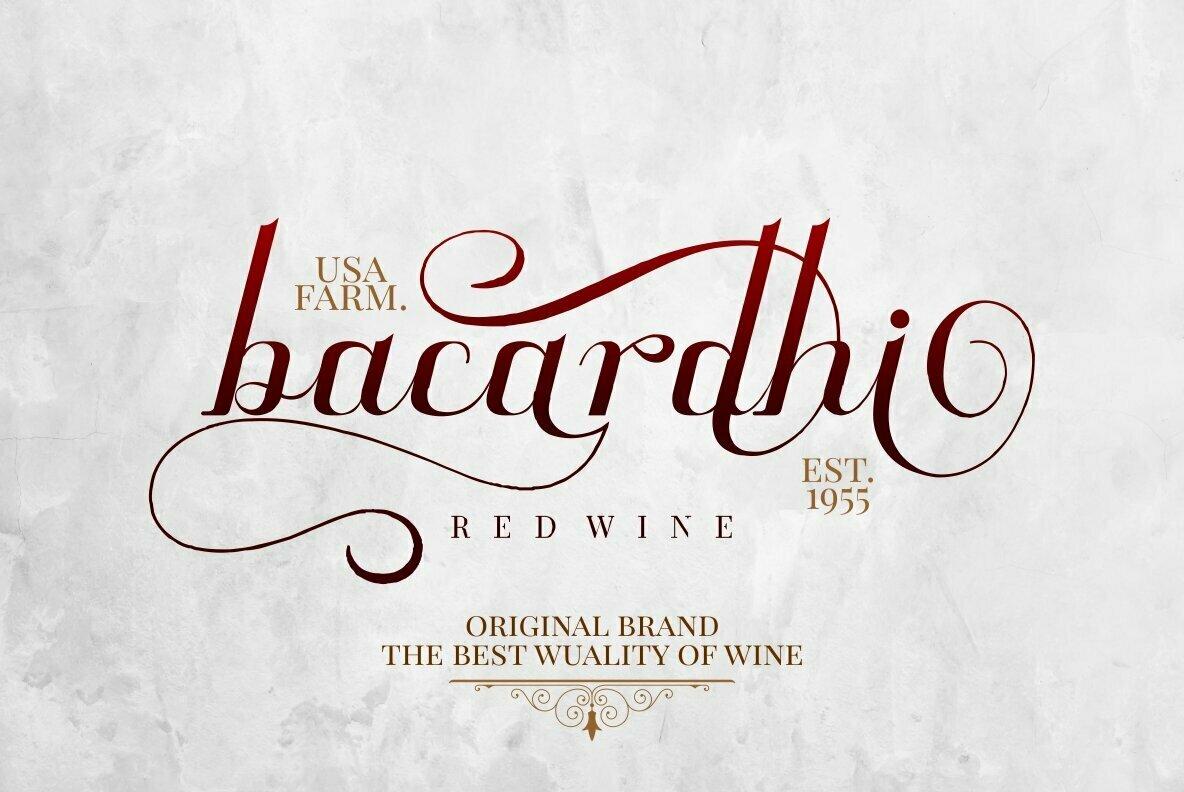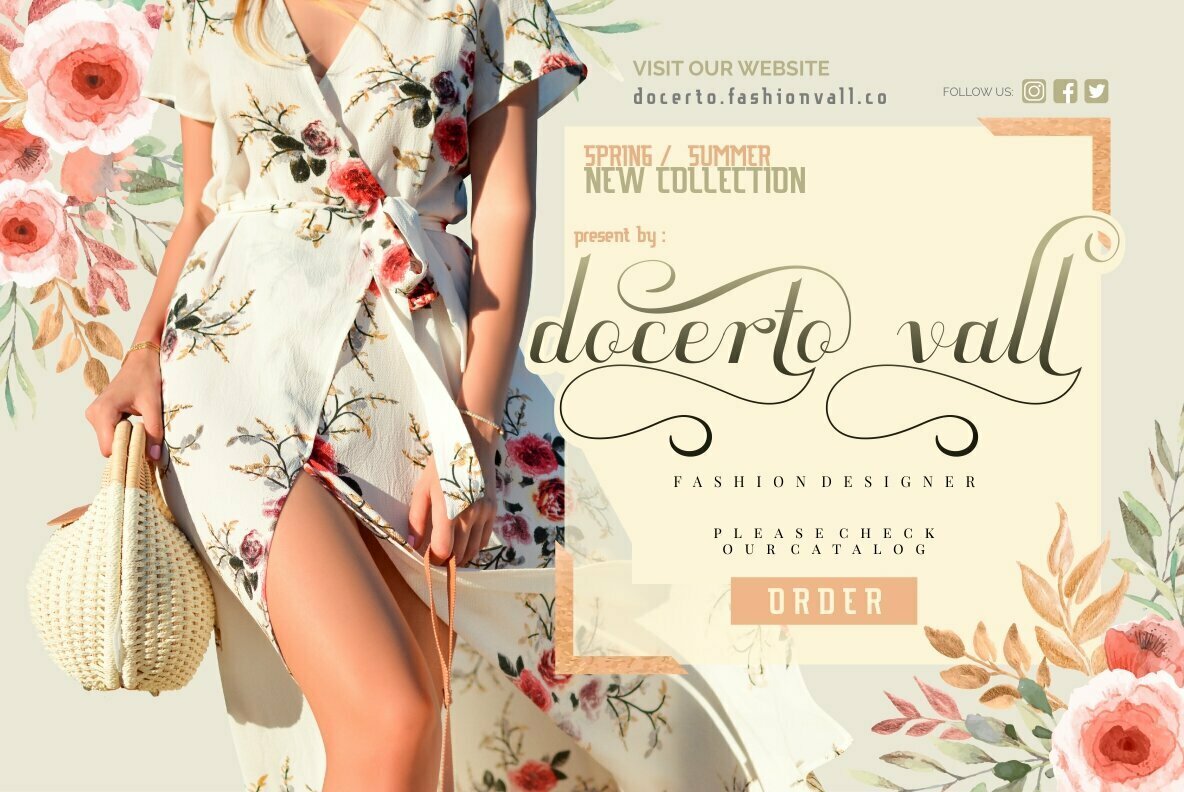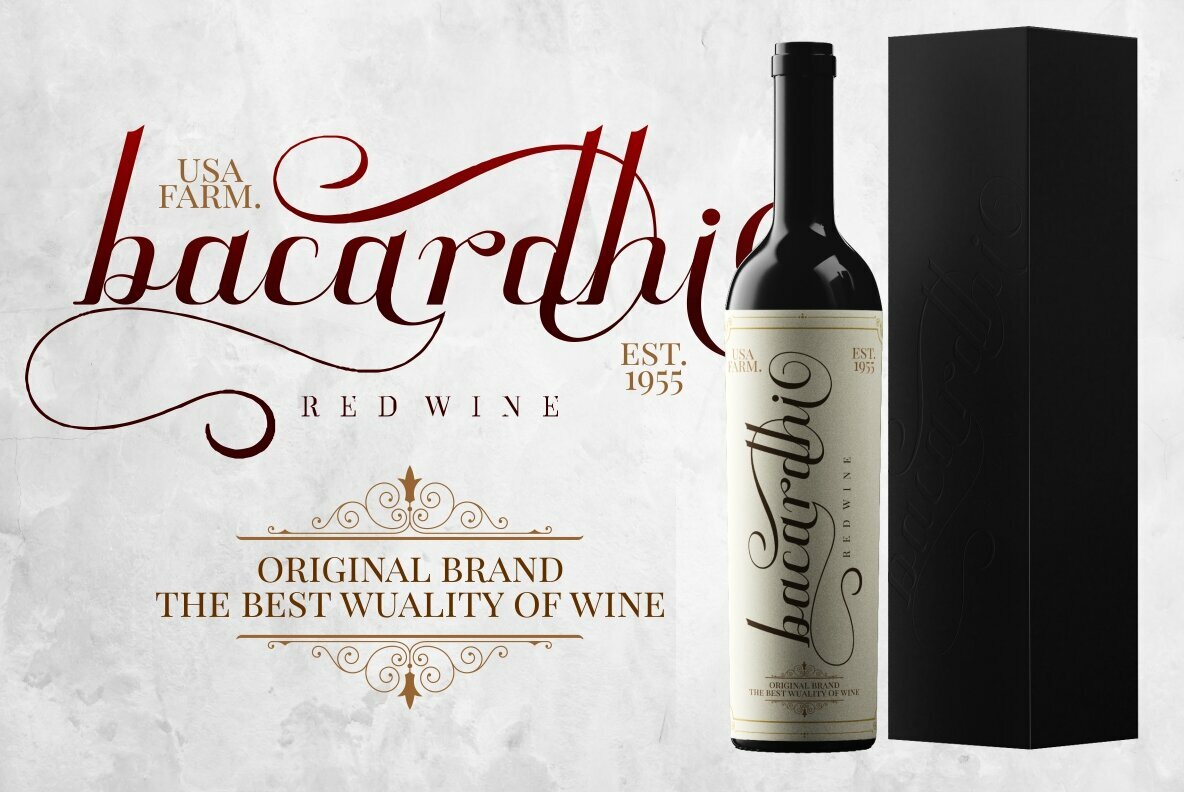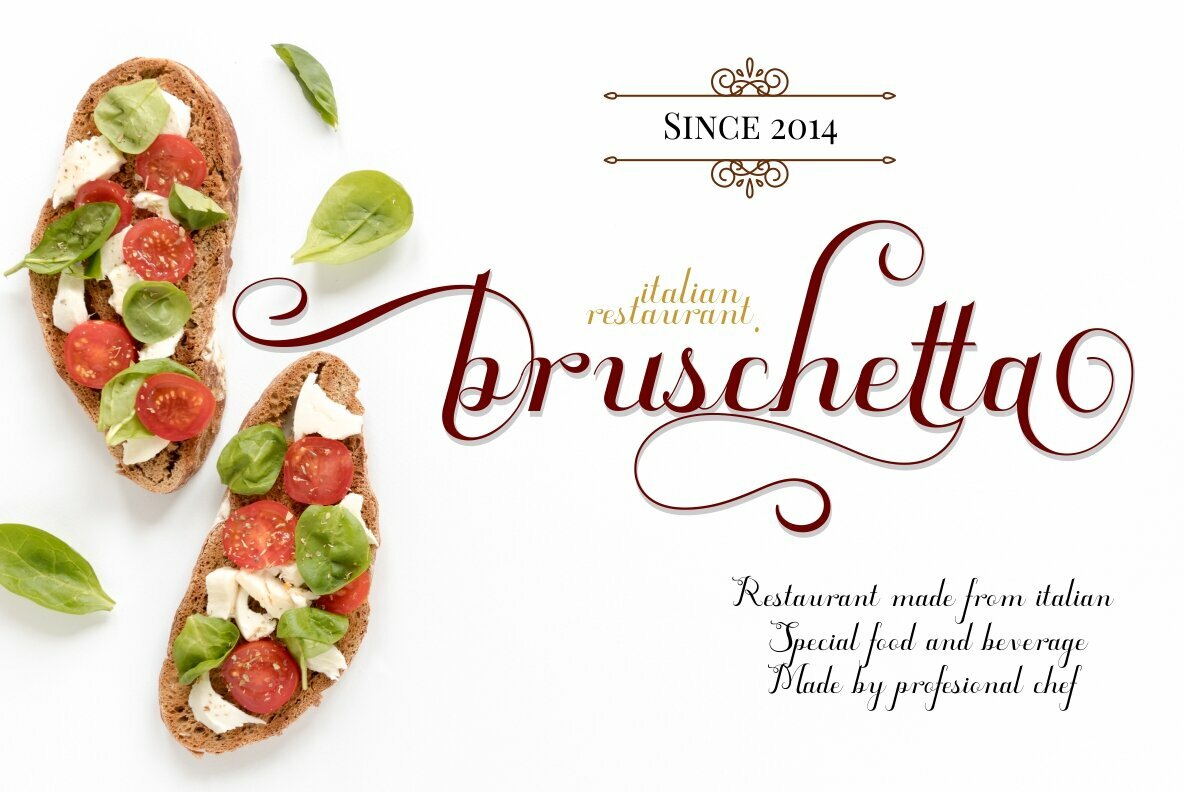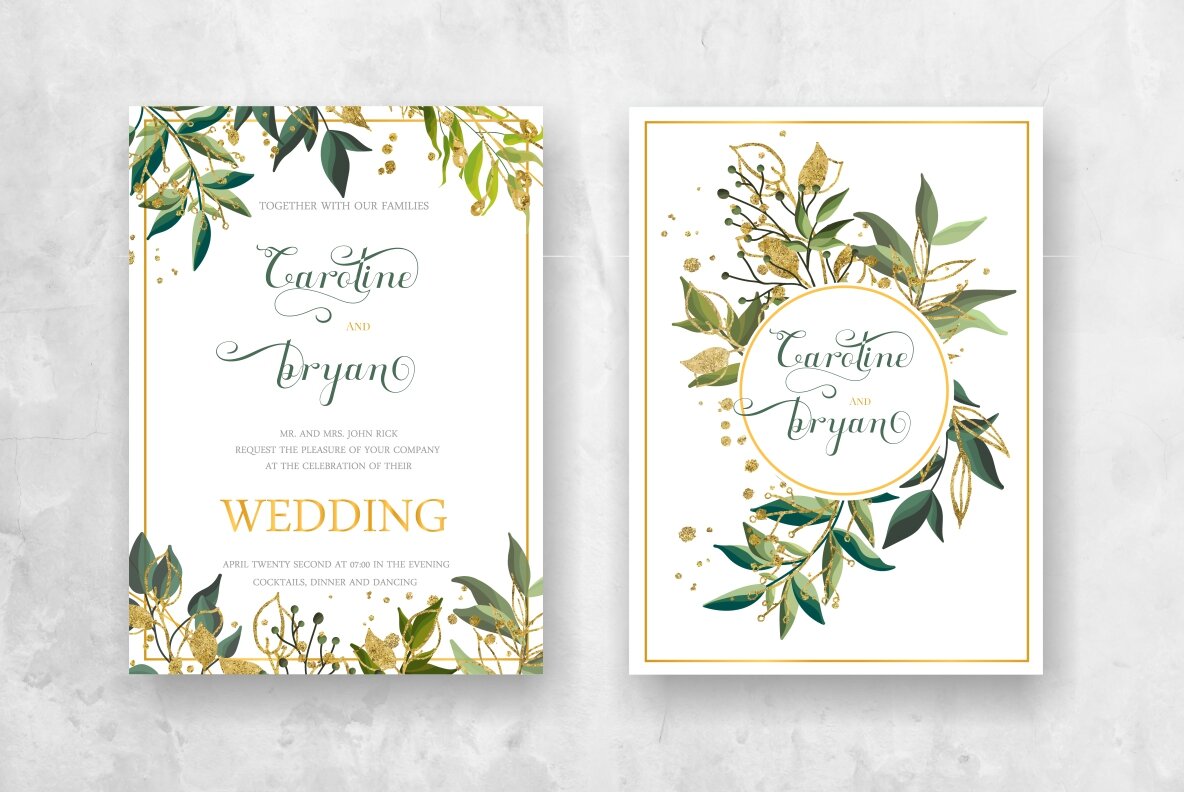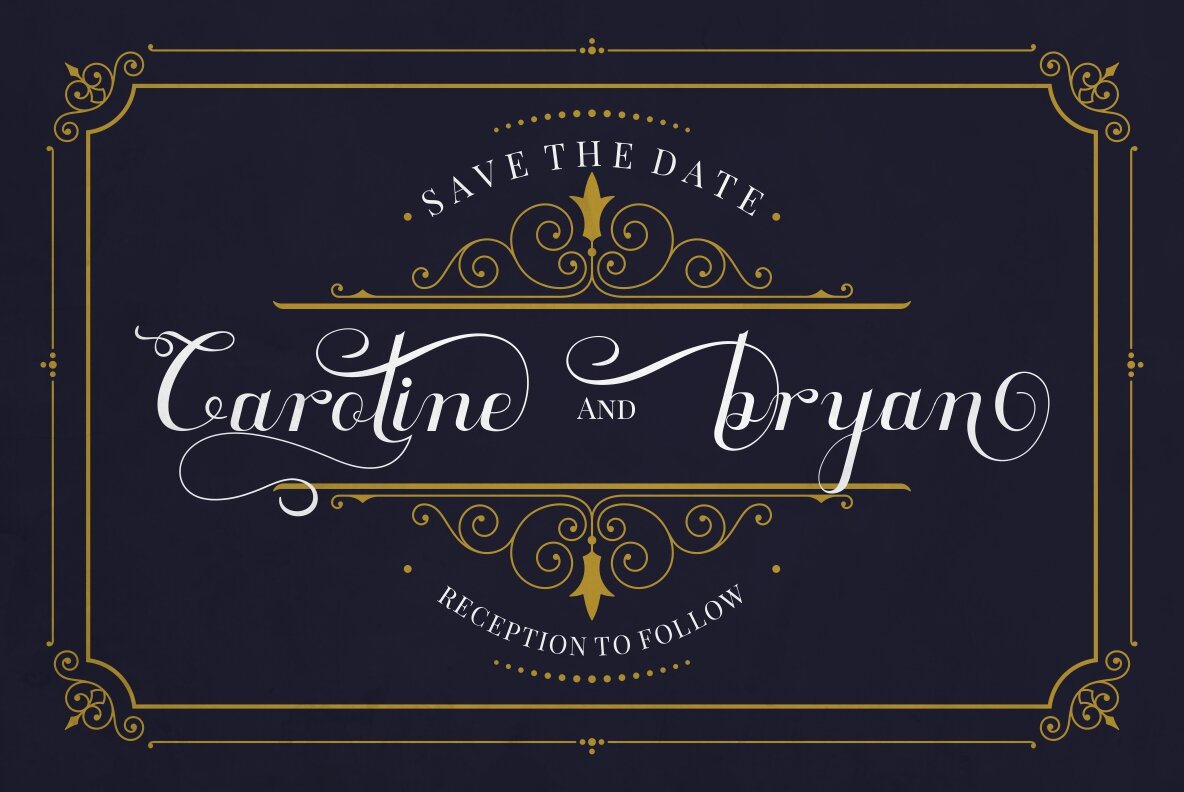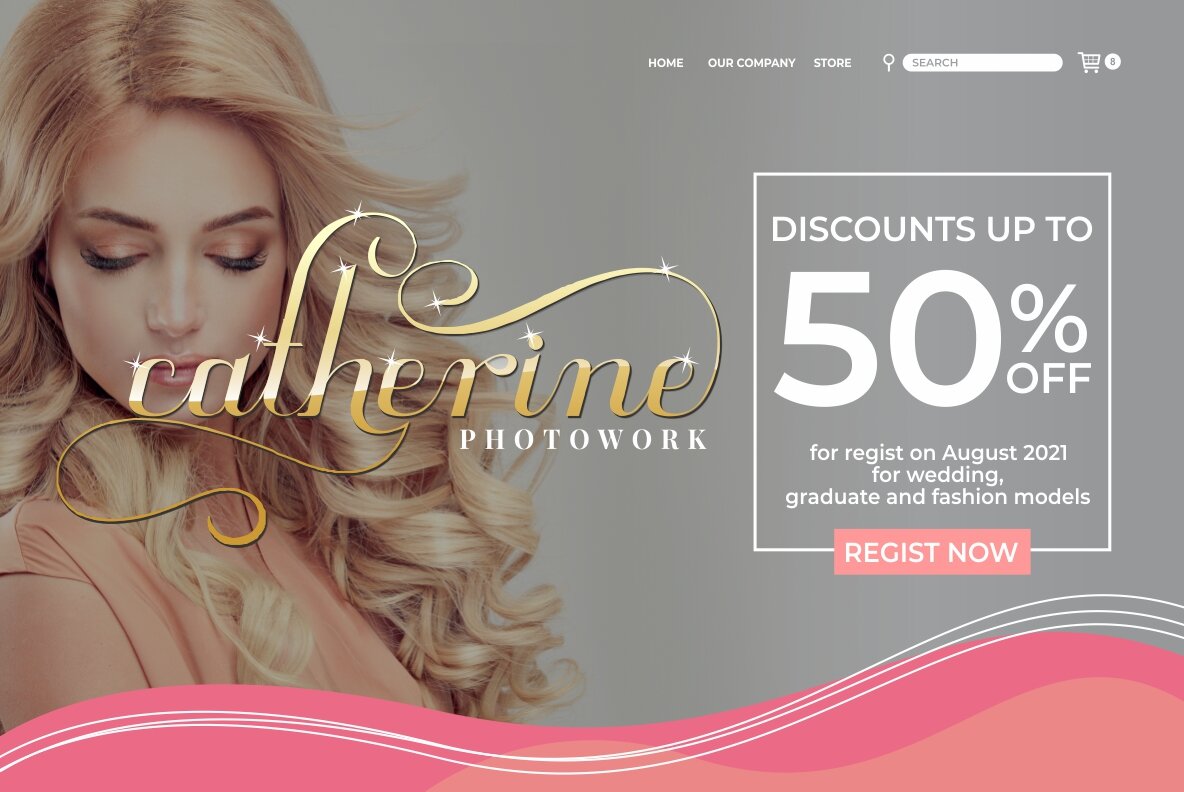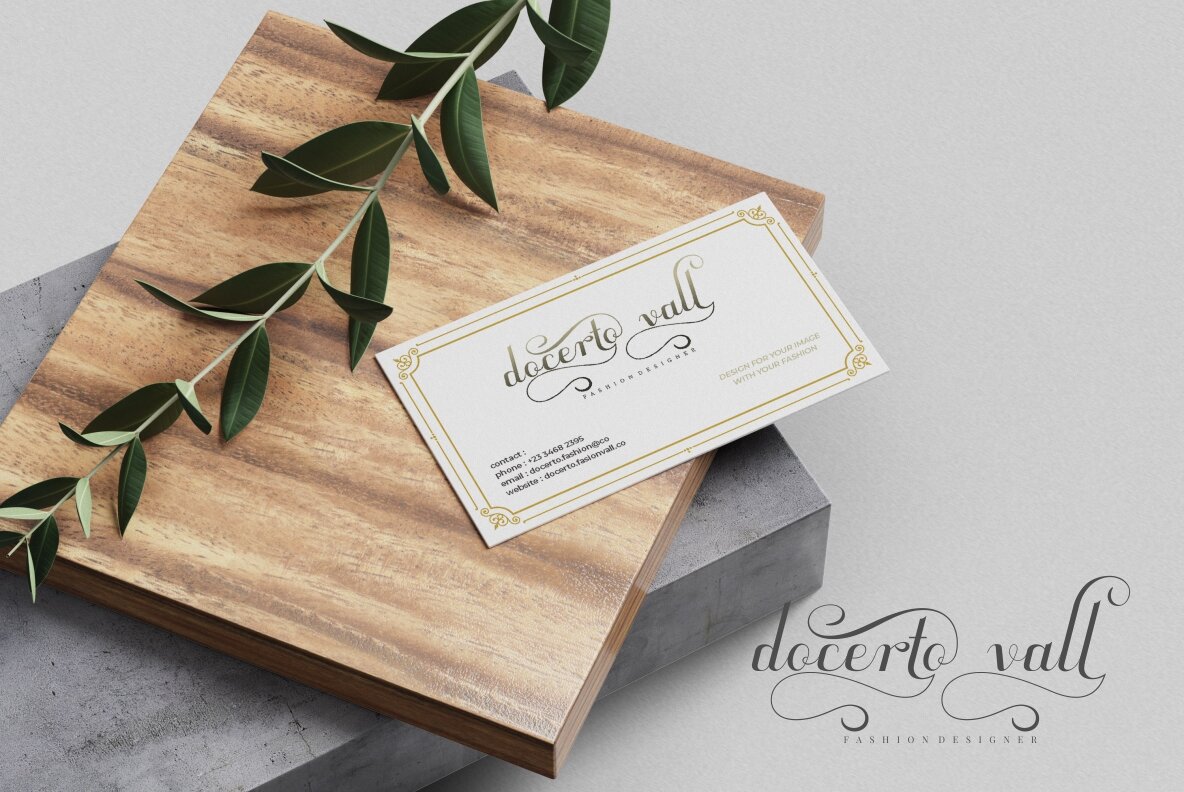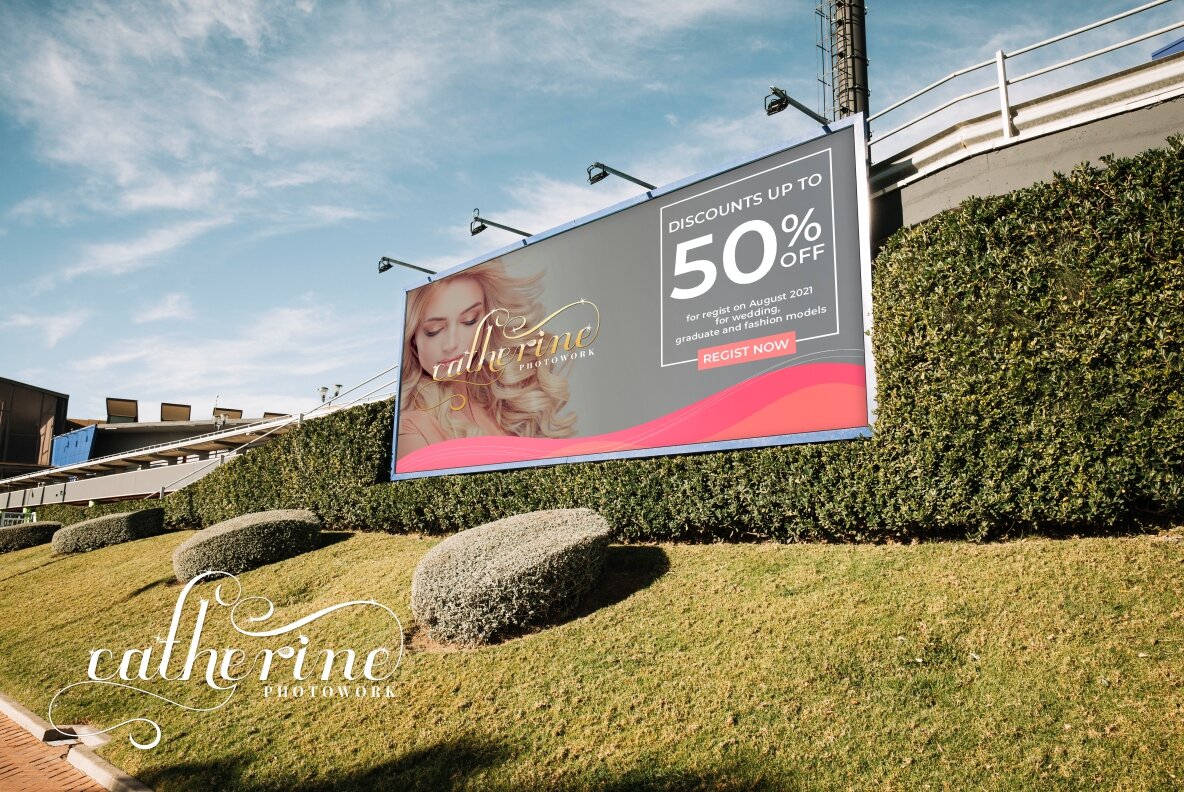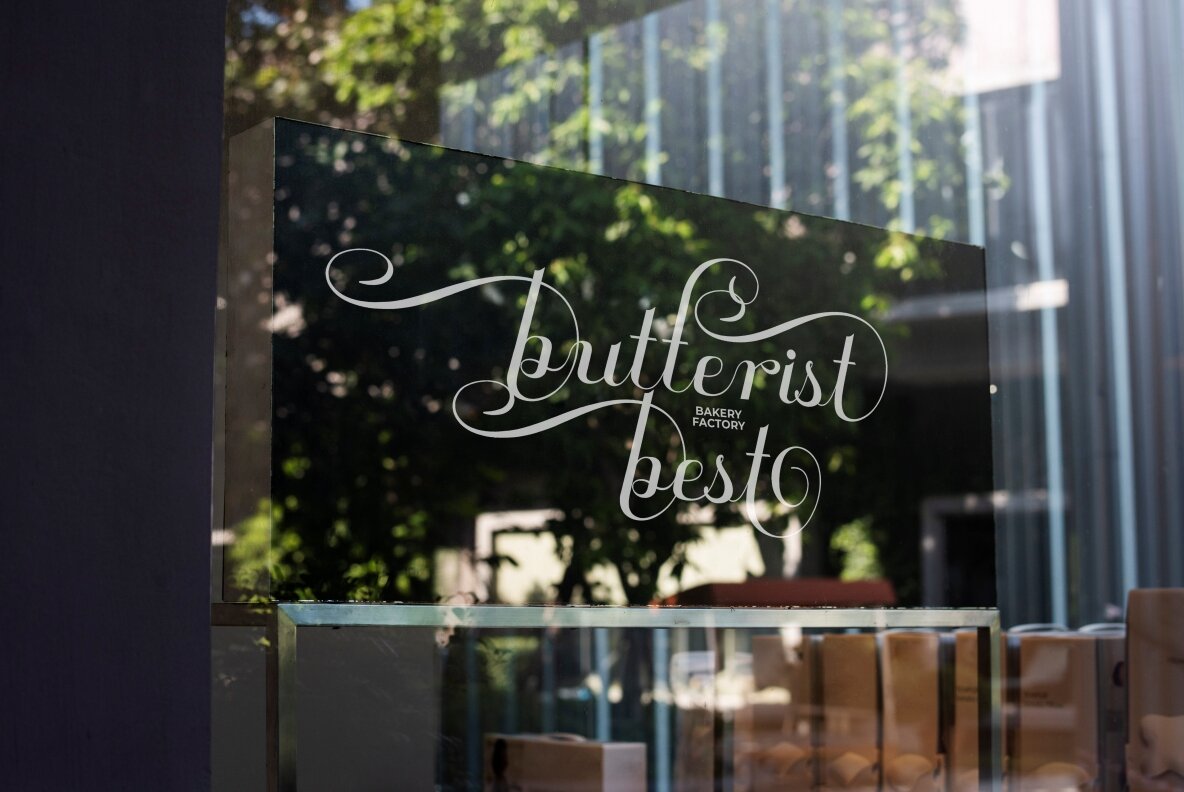
Quentara Font
Quentara
Quentara introduces a touch of elegance to various creative projects with its intricate alternates and high versatility. Ideal for crafting distinct logotypes, lettering compositions, and sophisticated wedding invitations, this font offers ample opportunities for innovative design. It seamlessly fits into fashion endeavors, book covers, magazine typography, card designs, packaging, posters, and brand strategies. Quentara boasts robust OpenType features that enrich your creativity by providing a wide array of alternate characters. Perfect for projects that require a multilingual approach, it ensures your designs are globally resonant. To fully utilize these alternates, you'll need design software that supports OpenType, such as Adobe Illustrator, Adobe Photoshop, Adobe InDesign, or Corel Draw.Quentara: A Luxurious Font With Versatile Alternates